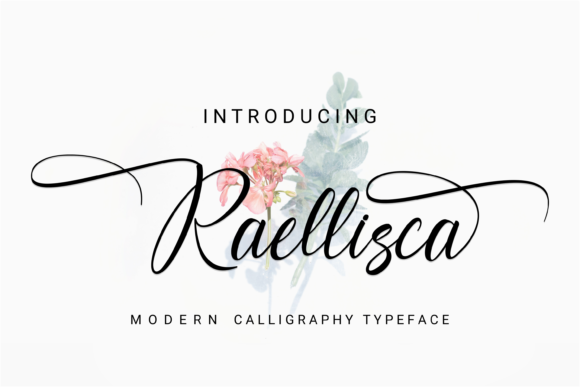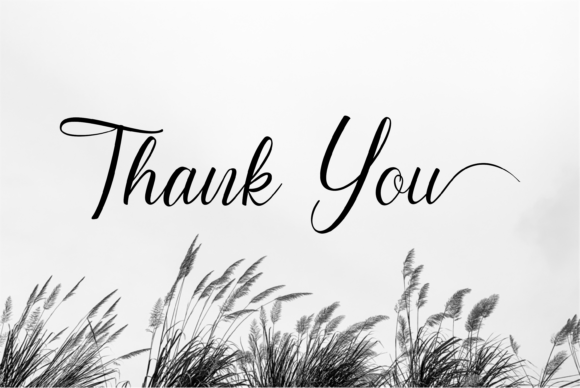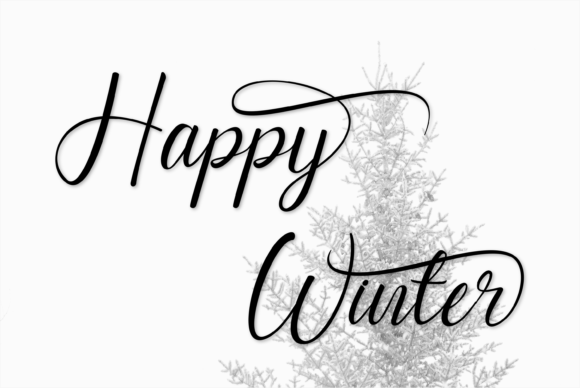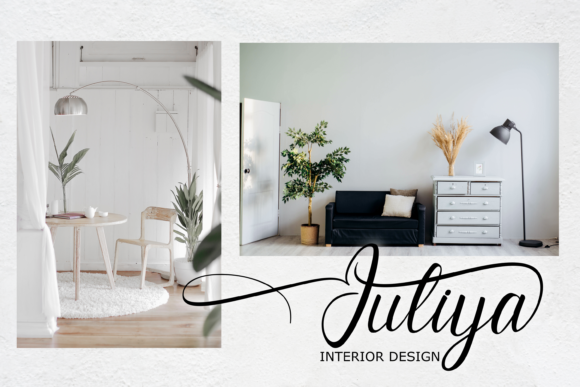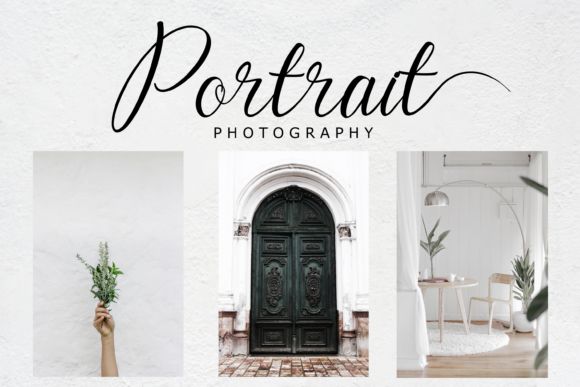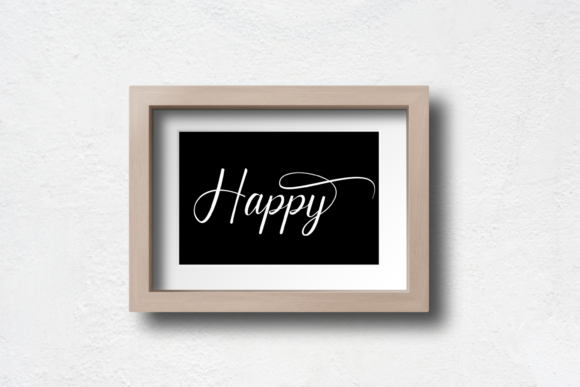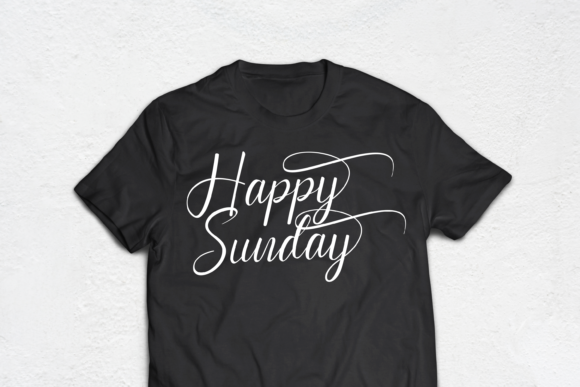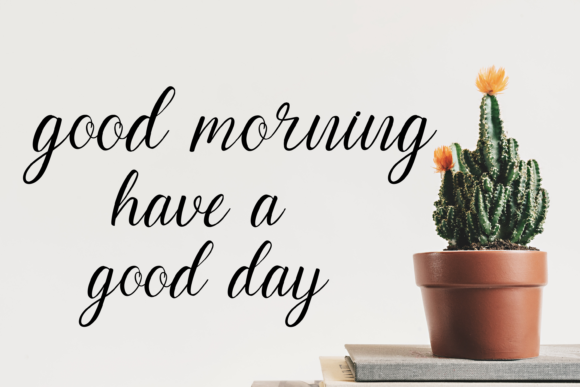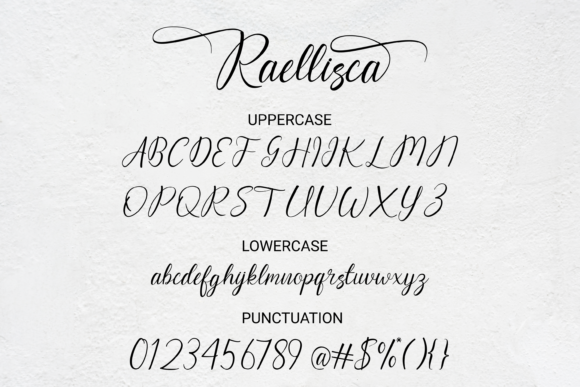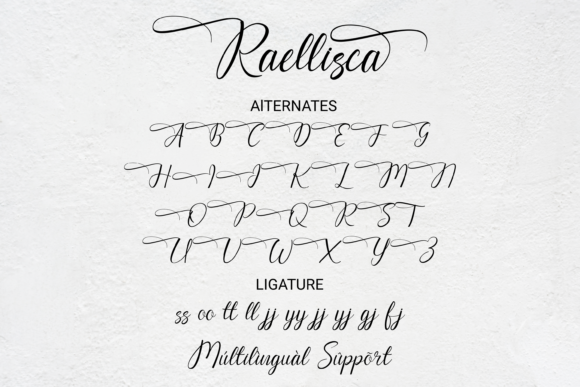
Raellisca Font
About Raellisca Font
Raellisca is a modern calligraphy font. It has an elegant, and smart look which can be used for logos, branding, invitations, stationery, wedding designs, social media posts, and much more!